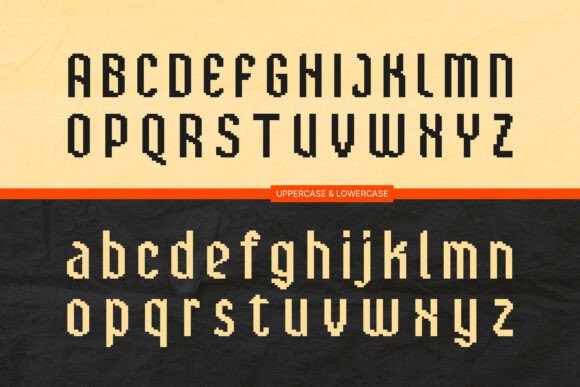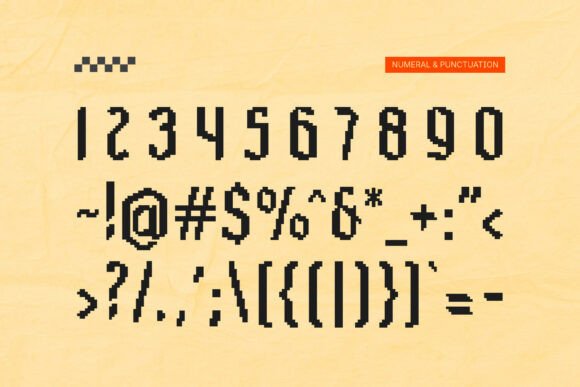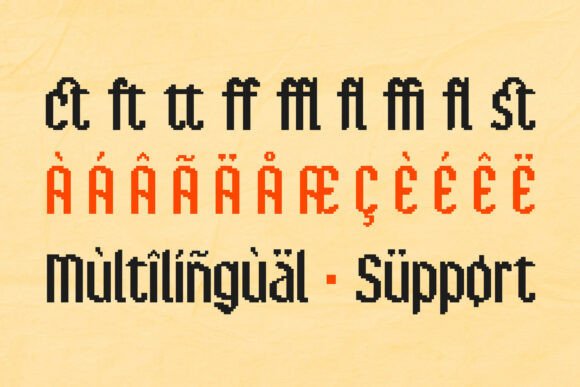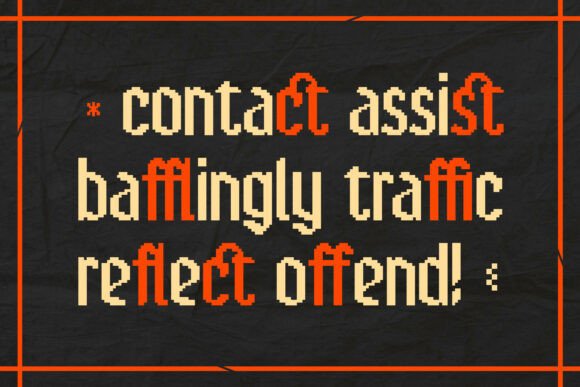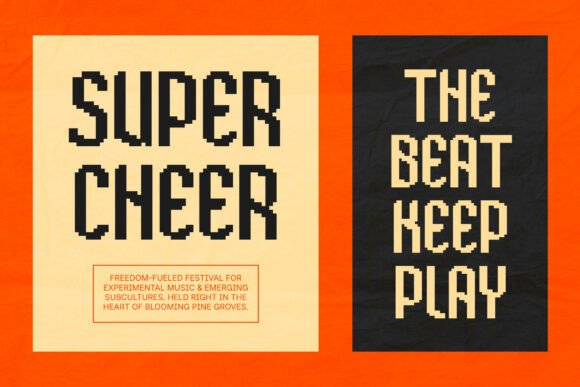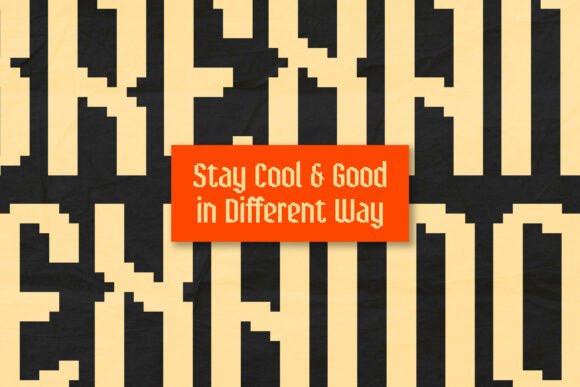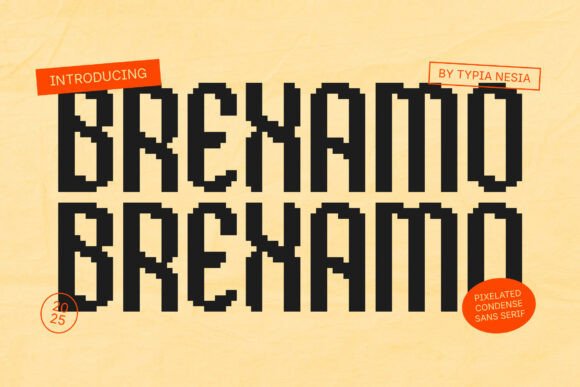
Introducing Brexamo Font: The Ultimate Retro Gaming Revival for Modern Designs
In the realm of digital design, fonts play a pivotal role in conveying the aesthetic and tone of a project. For those seeking to infuse their creations with a dose of nostalgia and a retro gaming vibe, Brexamo font emerges as a game-changer. This innovative pixelated condensed sans serif font is meticulously crafted to bring the charm of early video games and 8-bit graphics into modern digital designs.
The Essence of Brexamo: A Unique Blocky Aesthetic
Brexamo’s design is centered around a unique blocky aesthetic that instantly recalls the pixelated world of vintage video games. Its condensed structure is not just visually appealing; it also ensures an efficient use of space. This makes Brexamo an ideal choice for a variety of applications, from game titles and app interfaces to sci-fi themed branding and technology advertisements.
Versatility at Its Core
One of the standout features of Brexamo is its versatility. The font comes with full uppercase and lowercase characters, numerals, punctuation, and comprehensive multilingual support. This extensive range of features makes Brexamo suitable for a wide array of creative applications. Whether you’re working on playful branding, logo design, vibrant posters, or any project aiming to evoke the nostalgia of early video games and futuristic interfaces, Brexamo has got you covered.
Ideal Applications for Brexamo
Brexamo’s unique characteristics make it particularly well-suited for several types of projects:
- Game Titles: Bring a retro feel to your game’s title screen or packaging.
- App Interfaces: Add a playful, pixelated touch to your app’s UI.
- Sci-fi Themed Branding: Perfect for brands that want to evoke a futuristic or space-age vibe.
- Technology Advertisements: Stand out with a font that combines nostalgia and modernity.
- Playful Branding: Infuse your brand with a fun, approachable personality.
- Logo Design: Create memorable logos that have a unique pixelated aesthetic.
- Vibrant Posters: Make your posters pop with a font that’s both eye-catching and nostalgic.
Why Choose Brexamo?
Choosing Brexamo for your design project comes with several benefits:
- Unique Aesthetic: Stand out with a font that offers a fresh take on retro gaming vibes.
- Efficient Design: The condensed structure saves space without compromising on readability.
- Wide Compatibility: With multilingual support and a comprehensive character set, Brexamo fits a broad spectrum of design needs.
Brexamo font is a powerful tool for designers and crafters looking to add a touch of retro gaming charm to their modern digital designs. Its unique blocky aesthetic, combined with its efficiency and versatility, makes it an excellent choice for a wide range of projects. Whether you’re aiming to create a nostalgic feel or simply looking for a font that stands out, Brexamo is sure to exceed your expectations. Dive into the world of pixelated design with Brexamo and bring your creative visions to life.